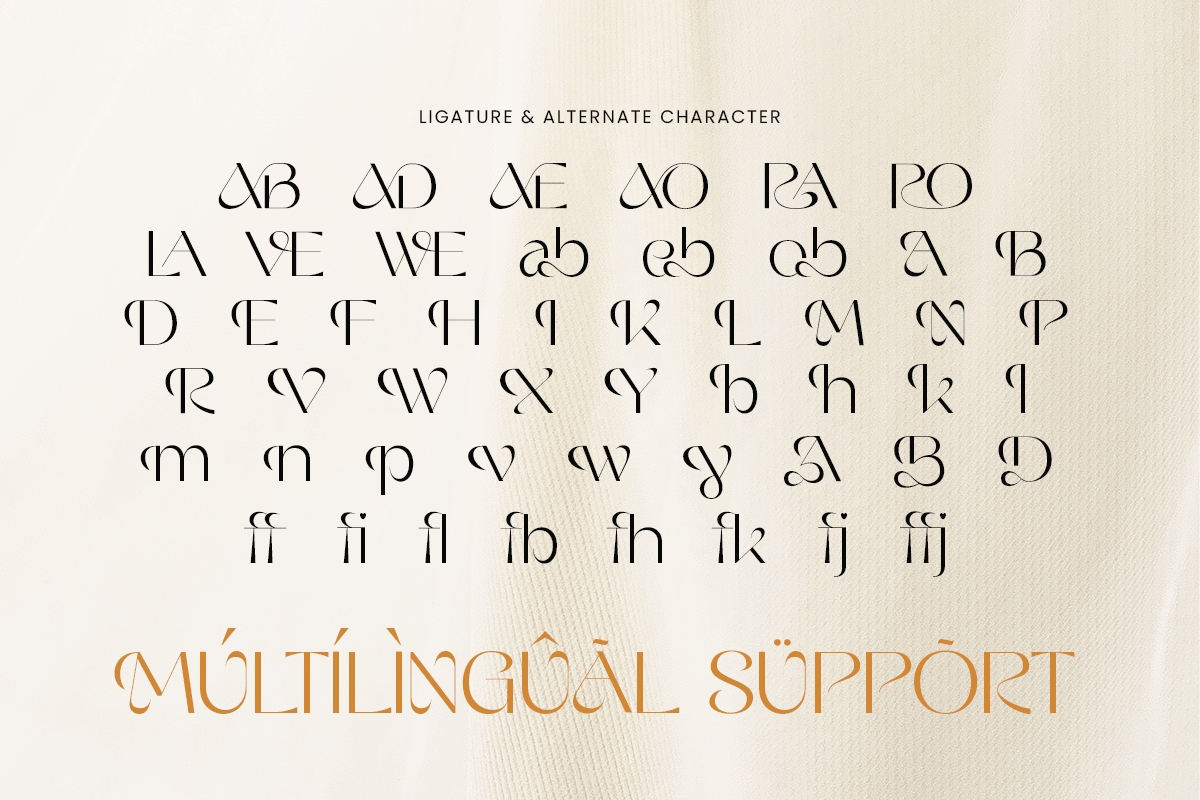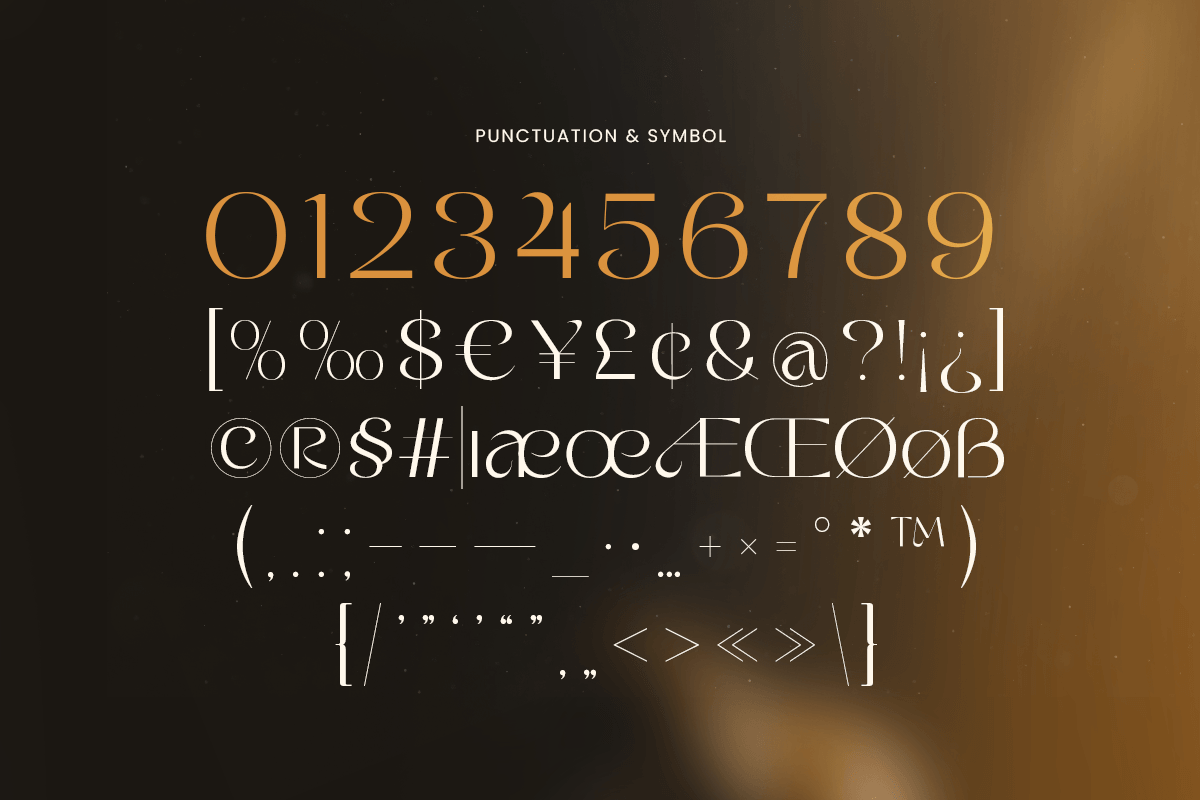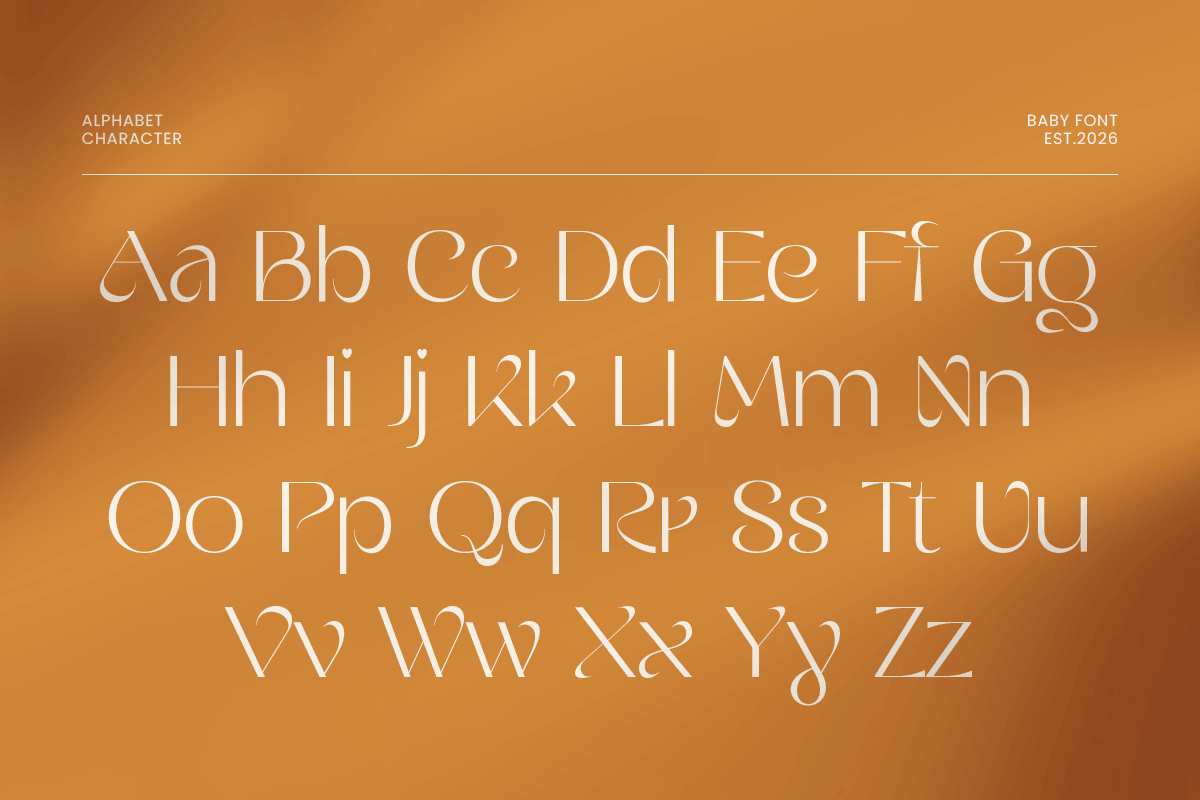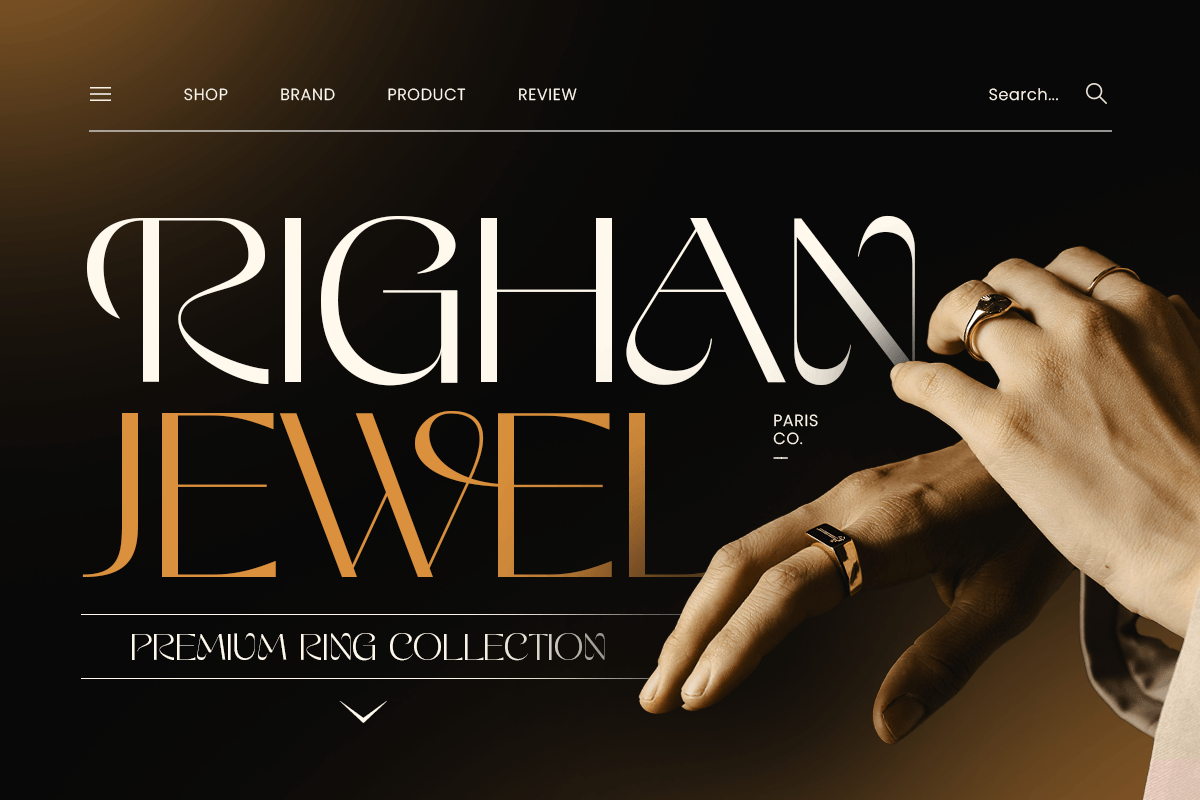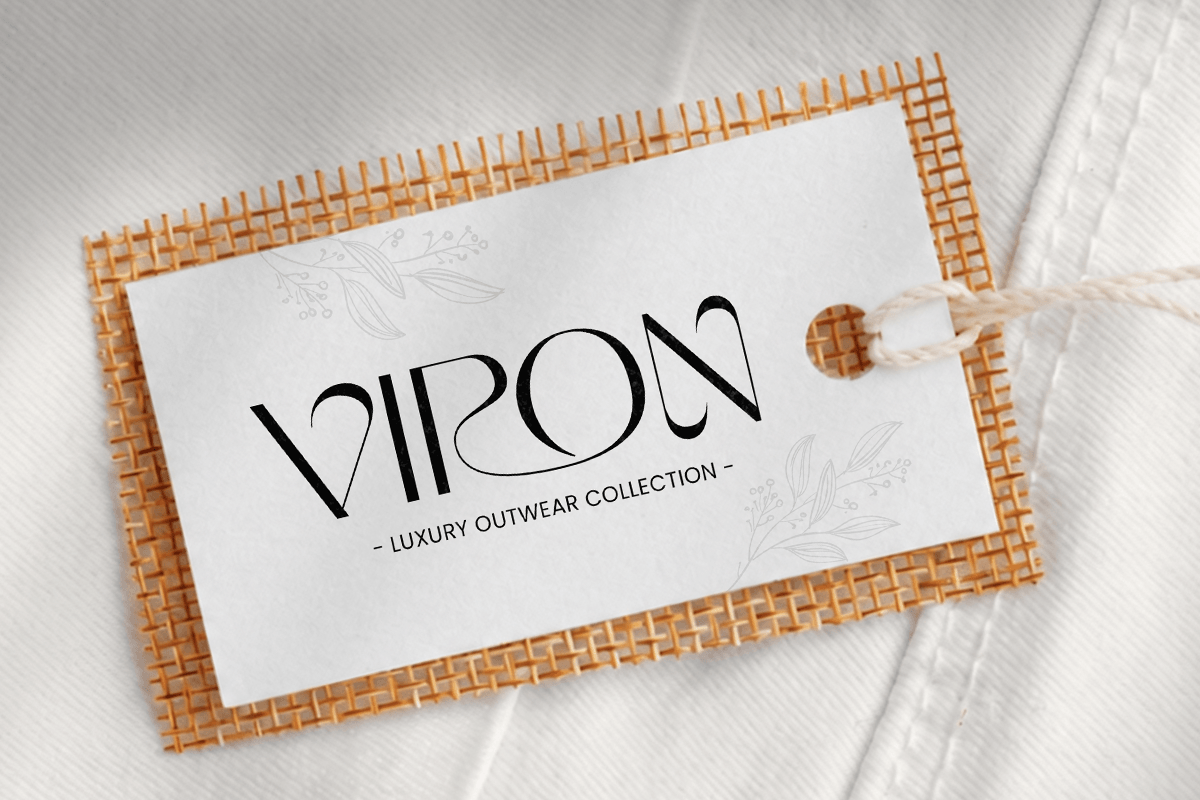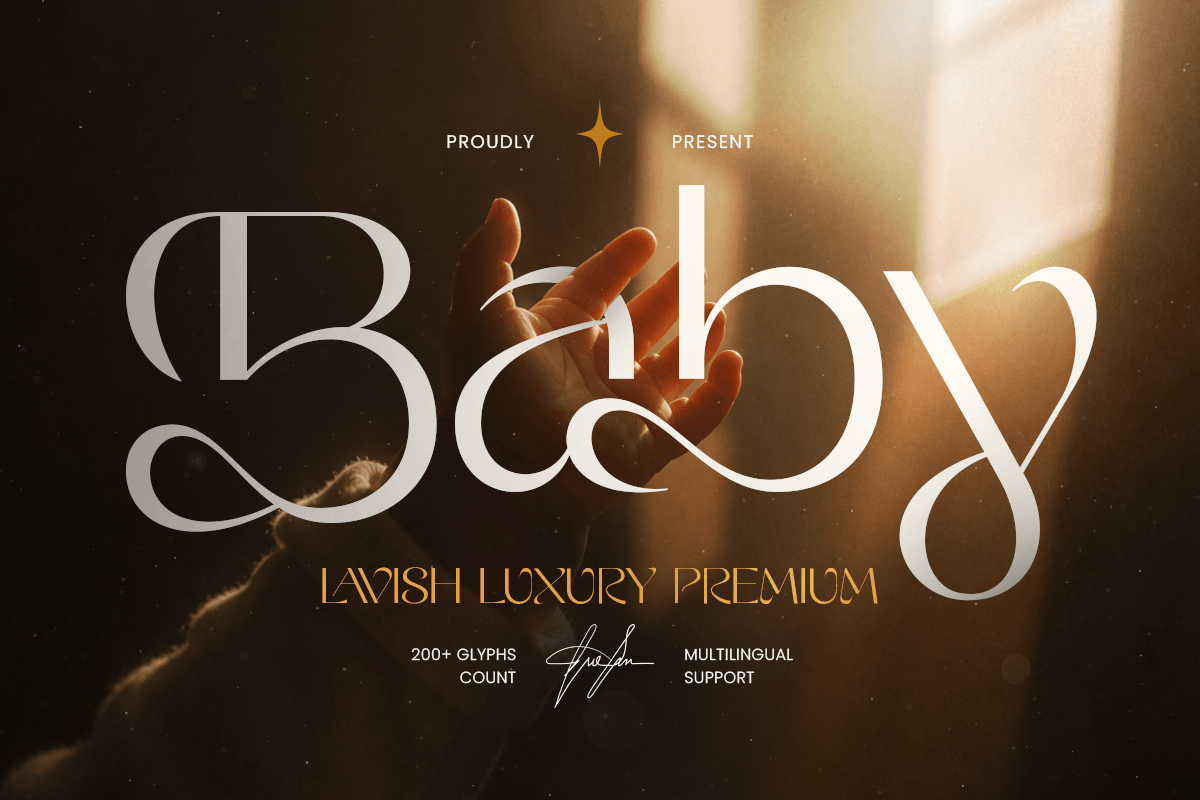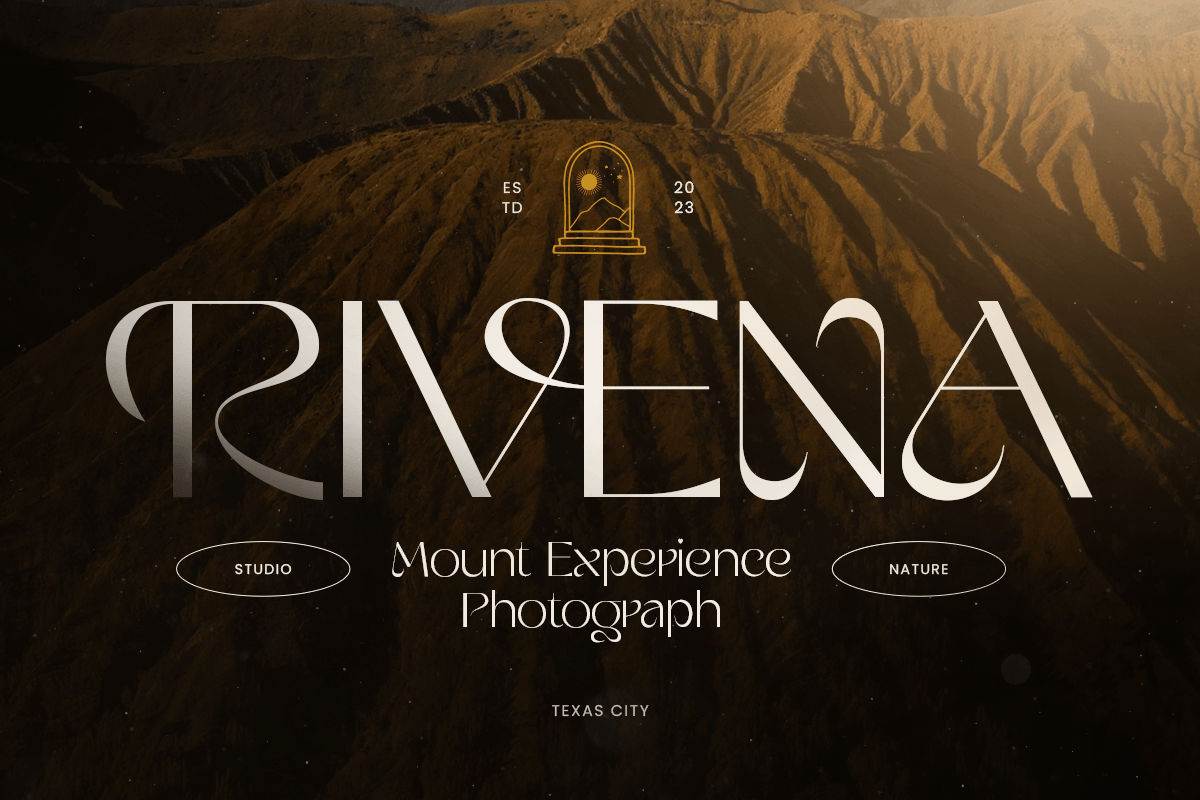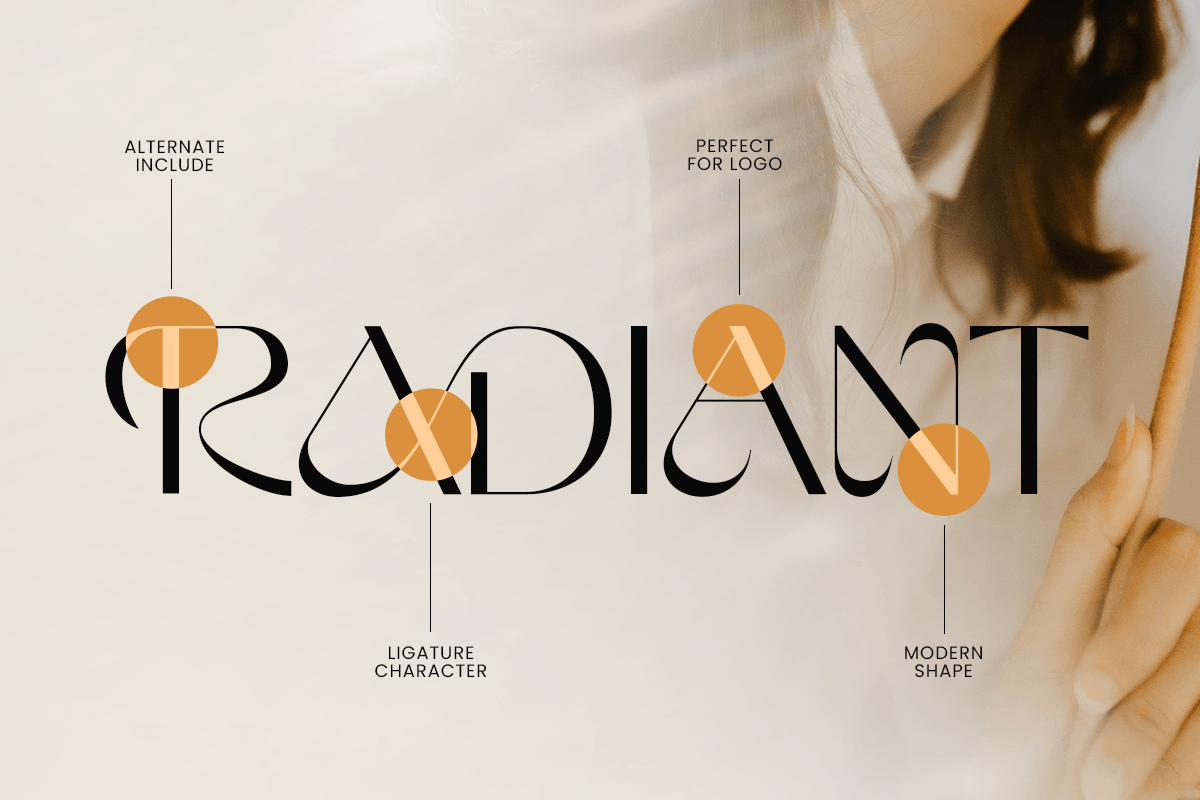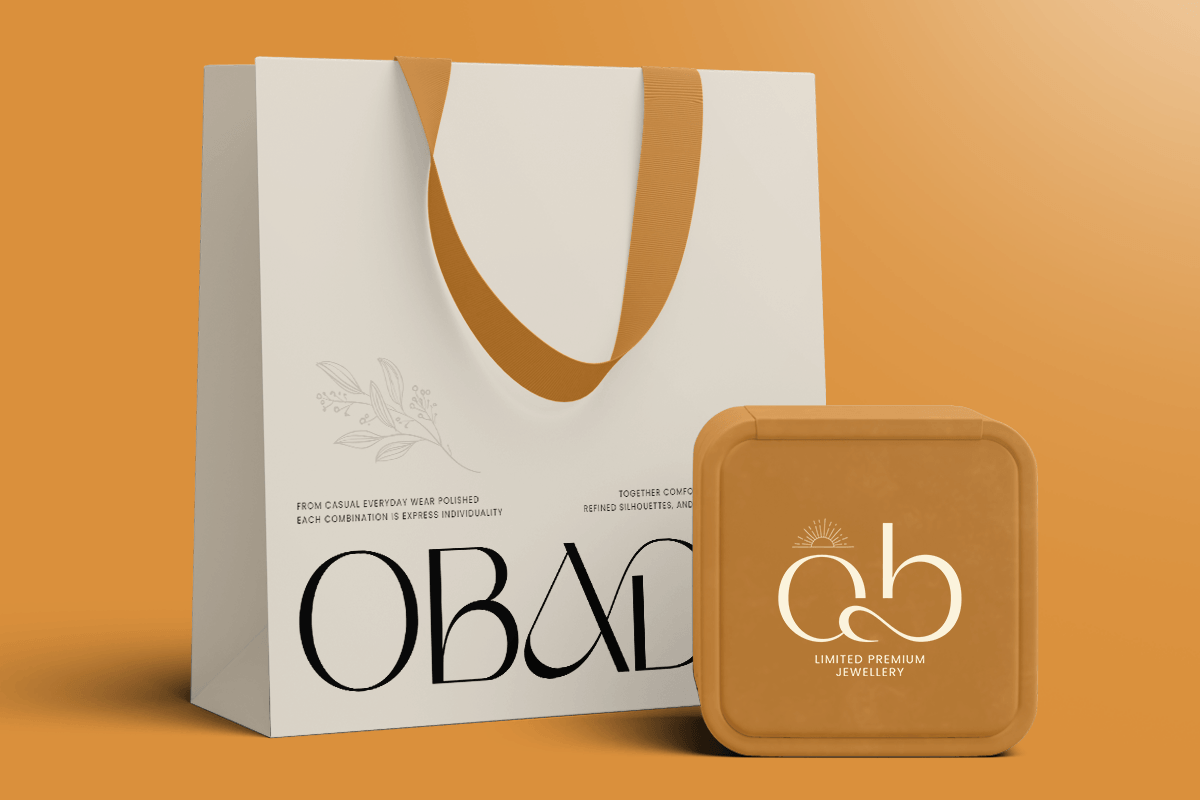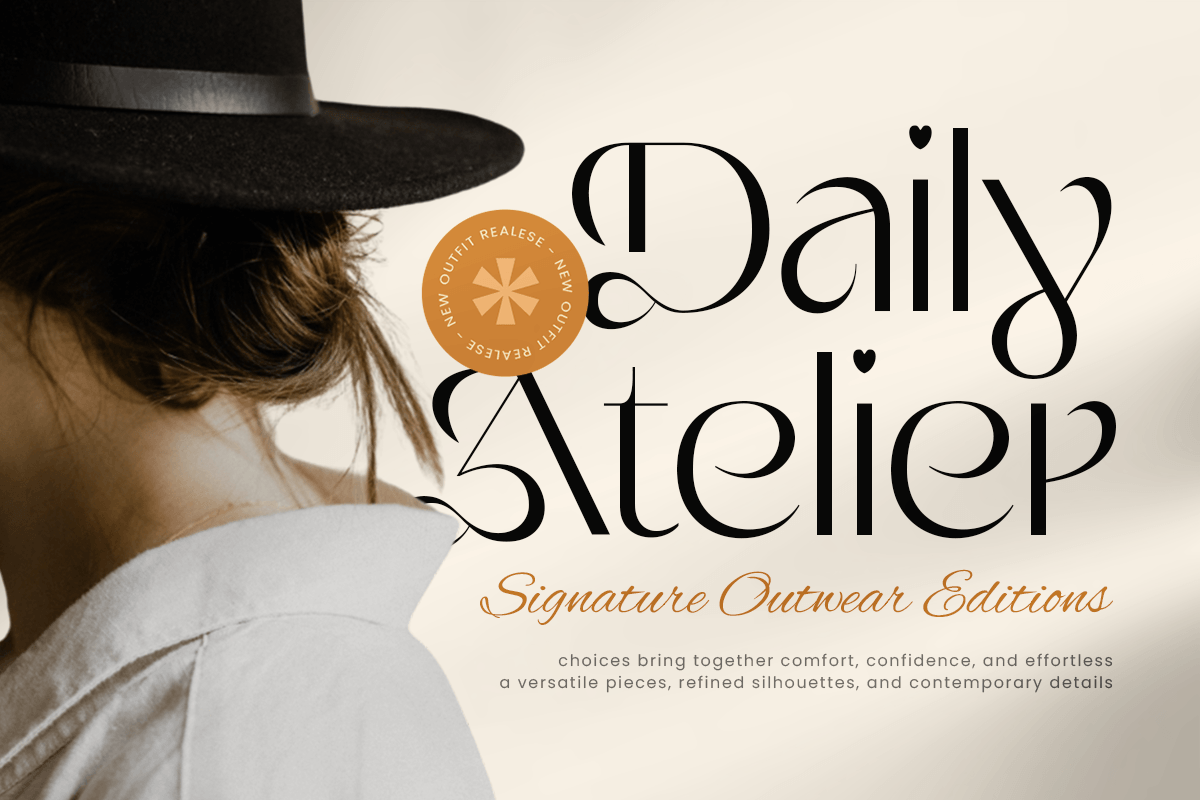
Baby - Luxury Premium Font
Baby is a luxury premium font crafted for sophisticated branding, elegant typography, and high-end visual identity. With refined letterforms, graceful details, and a stylish display character, it creates a timeless and memorable presence for every design.
Designed for logos, luxury branding, fashion identity, beauty packaging, editorial layouts, boutique designs, and social media graphics, Baby combines premium aesthetics with modern elegance and versatile usability.
Perfect for designers who want a font with luxurious personality, refined style, and a distinctive visual presence.
Baby Font Features
Uppercase & lowercase
Luxury premium characters
Alternates & ligatures
Professional kerning
Baby Font Perfect For Logo design, luxury branding, fashion identity, beauty packaging, boutique designs, editorial headlines, magazine covers, social media posts, product labels, and elegant typography projects.